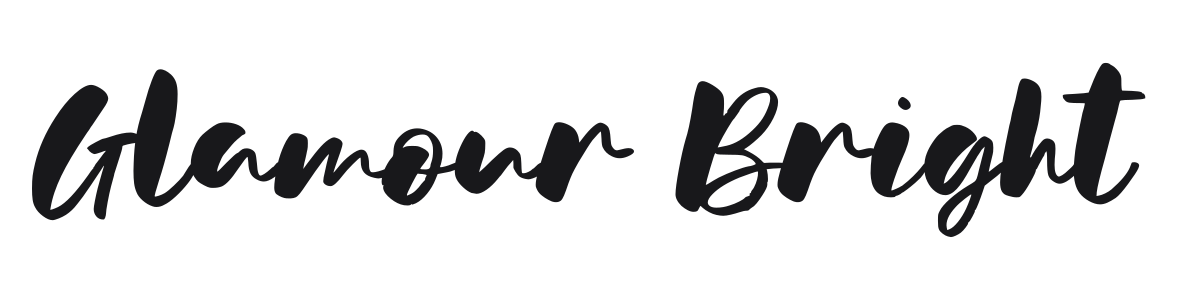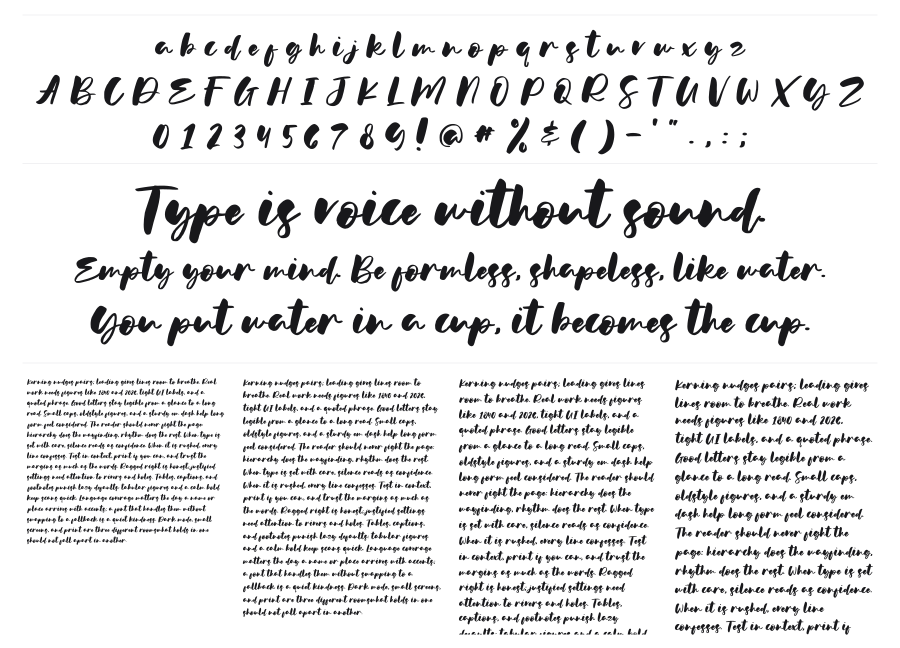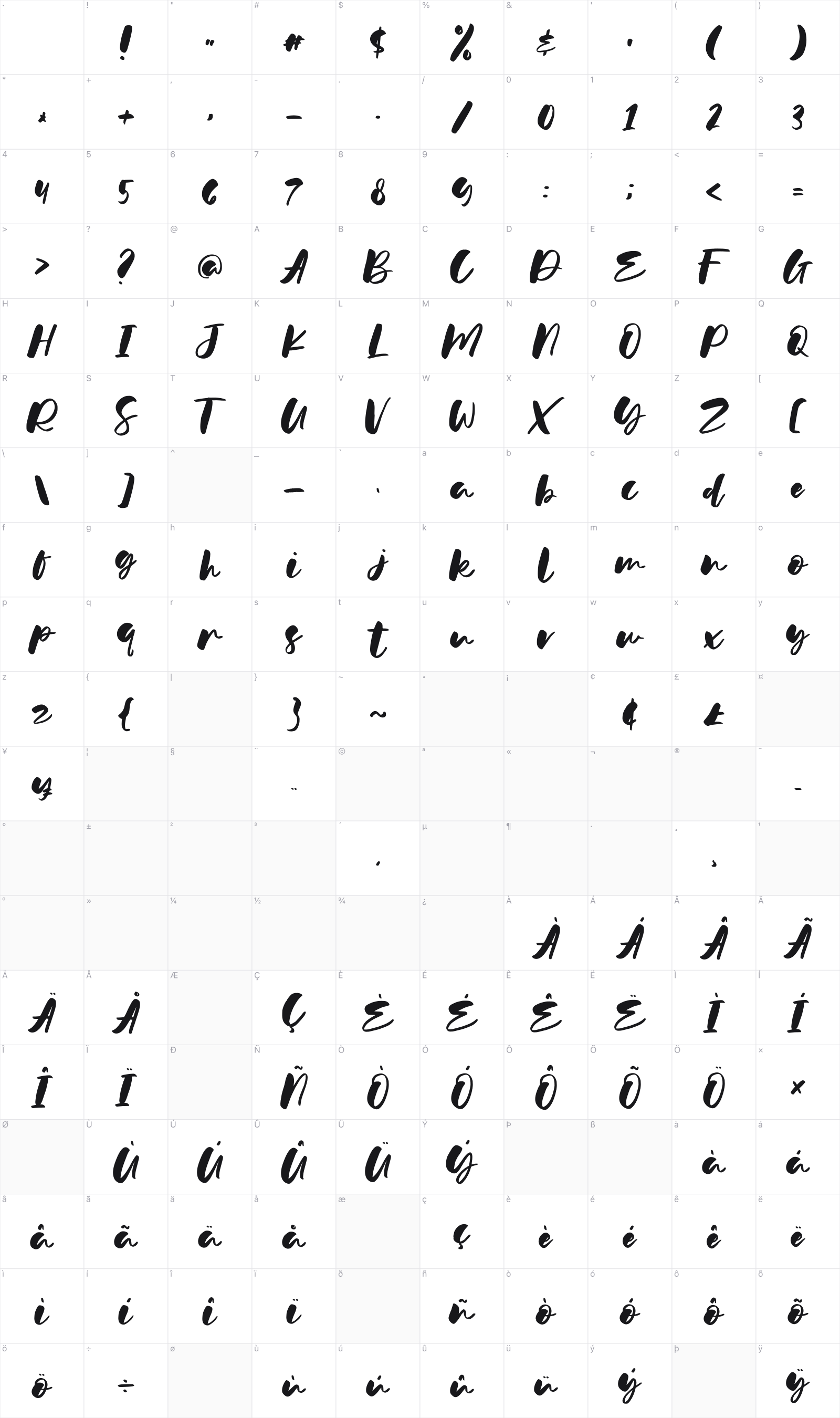
Glamour Bright
Glamour Bright is a bold contemporary brush script with sweeping strokes and lively baseline bounce. The high contrast between thick stems and hairline connectors gives it an energetic, hand-lettered feel that reads well at large sizes. It suits branding, packaging, and editorial work where warmth and personality are needed.